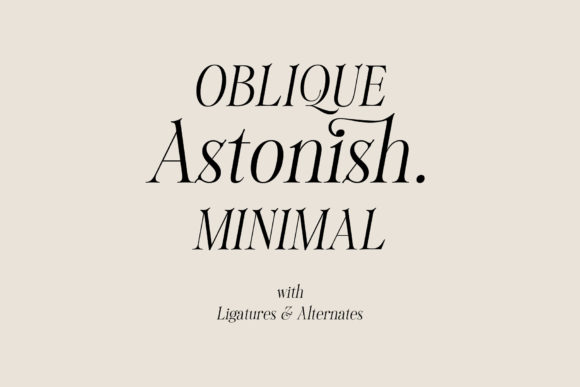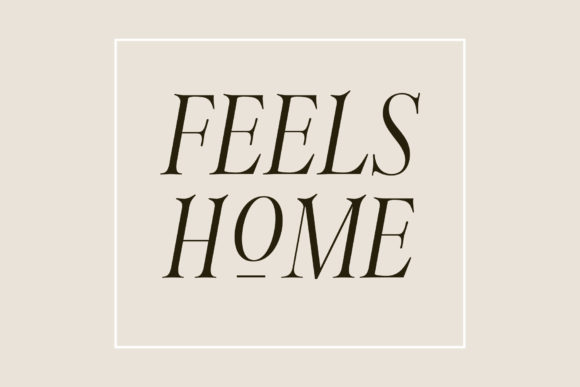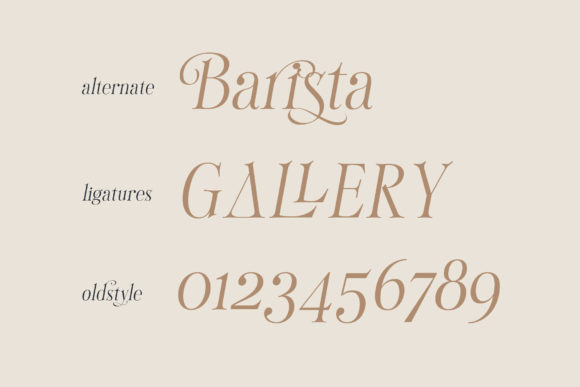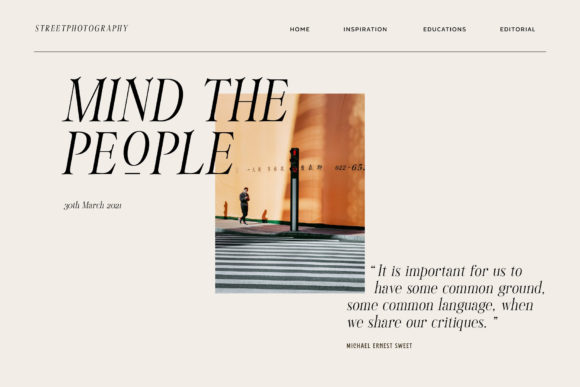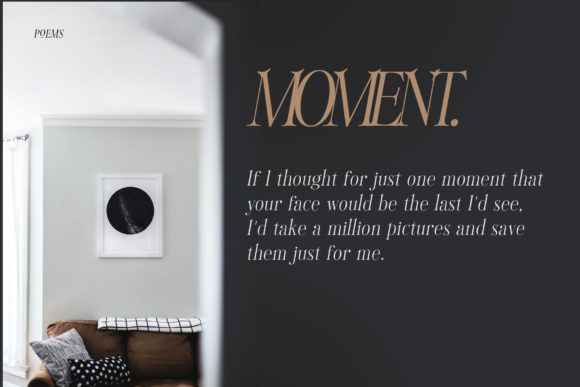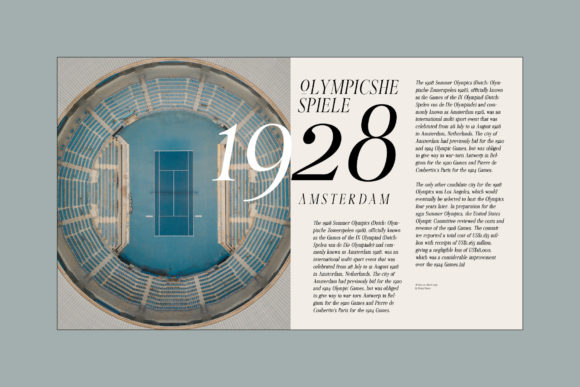
Discover the Elegance of Alstera Oblique Font: A Timeless Serif Choice for Designers
In the world of typography, fonts play a crucial role in conveying messages, expressing creativity, and enhancing the visual appeal of designs. Among the numerous fonts available, Alstera Oblique stands out as an elegant and distinct serif font that has captured the attention of designers and crafters alike. In this article, we’ll explore the unique features, benefits, and uses of Alstera Oblique, and why it’s become a popular choice for those seeking a classy and contemporary typographic solution.
What is Alstera Oblique Font?
Alstera Oblique is a sophisticated serif font that boasts a unique blend of classic calligraphic influences and modern flair. Its elegant design makes it perfect for a wide range of applications, from luxury branding and advertising to packaging, magazines, and digital media. The font’s distinctive features, such as its refined serifs and flowing lines, give it a distinctive character that sets it apart from other fonts.
One of the standout features of Alstera Oblique is its PUA (Private Use Area) encoding. This means that users can easily access all the glyphs and swashes, allowing for greater flexibility and creativity in their designs. With PUA encoding, designers can effortlessly navigate the font’s extensive character set, including ligatures, alternates, and ornaments, to create stunning and unique typographic compositions.
Classy Calligraphic Influences
Alstera Oblique’s design is deeply rooted in traditional calligraphy, evident in its fluid strokes, subtle connections, and refined letterforms. The font’s calligraphic influences evoke a sense of luxury, sophistication, and elegance, making it ideal for high-end branding, editorial design, and artistic projects. At the same time, the font’s contemporary feel ensures it remains fresh and relevant, suitable for modern design applications.
Contemporary and Fresh
While Alstera Oblique’s classic influences are undeniable, the font also boasts a distinctly modern aesthetic. Its clean lines, balanced proportions, and crisp edges give it a refreshing and contemporary feel that works well in a variety of design contexts. Whether used in digital media, print materials, or packaging, Alstera Oblique brings a touch of sophistication and style to any project.
Alstera Oblique offers numerous benefits for designers and crafters, including:
- Elegant and distinctive design: Alstera Oblique’s unique character makes it perfect for projects that require a touch of sophistication and luxury.
- Classy calligraphic influences: The font’s traditional roots evoke a sense of timelessness and refinement.
- Contemporary feel: Alstera Oblique’s modern aesthetic ensures it remains fresh and relevant.
- Versatility: Suitable for a wide range of applications, from branding and advertising to packaging and digital media.
Alstera Oblique font is an exceptional choice for designers and crafters seeking a sophisticated, elegant, and distinctive serif font. Its unique blend of classic calligraphic influences and modern flair makes it perfect for a wide range of applications. With PUA encoding, accessing glyphs and swashes is effortless, allowing for greater creative freedom and flexibility. Whether you’re working on a luxury brand project, editorial design, or artistic endeavor, Alstera Oblique is sure to bring a touch of class and sophistication to your work.
In conclusion, Alstera Oblique font is a timeless typographic solution that offers a perfect balance of elegance, refinement, and modernity. Its versatility, combined with its distinctive character, makes it an excellent addition to any designer’s font library.